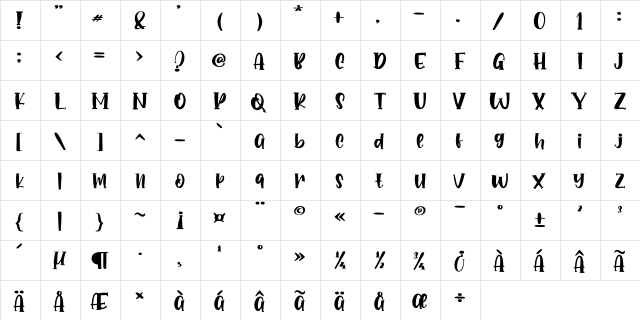
Eiffel Shine Regular
Design Context for Eiffel Shine Typeface
Eiffel Shine is a composed and adaptable typeface that performs quietly and consistently across a wide range of design contexts.